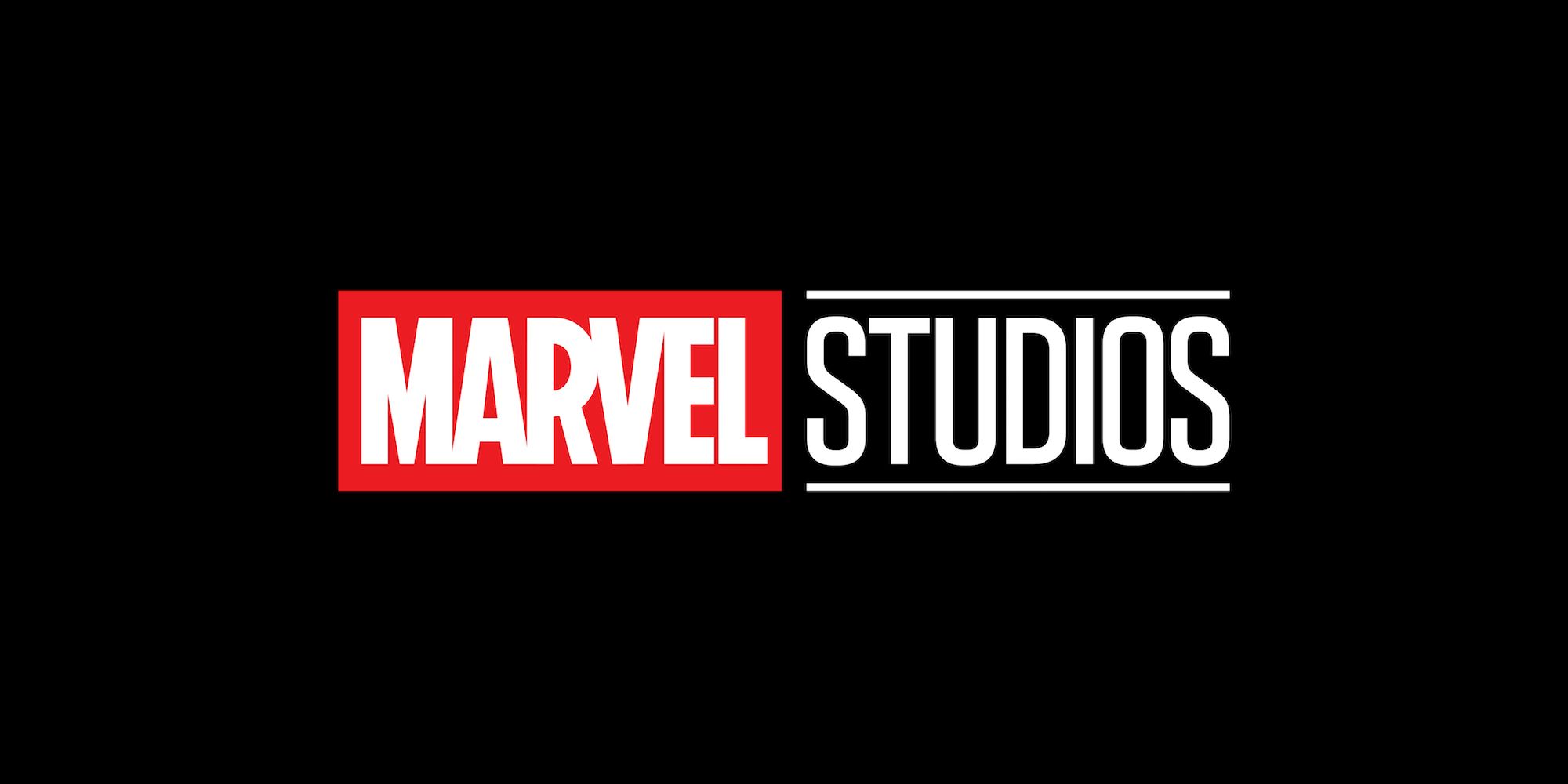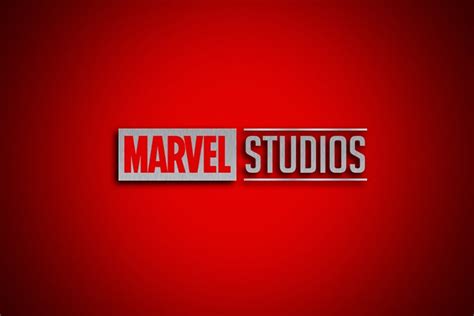
Marvel Studios Logo Font
Marvel Studios Logo Font - Click to find the best 77 free fonts in the marvel style. I'm looking for the typeface used for the studios section of marvel's film division. Dharma gothic is close, but the characters are a little too tall compared to their. I think it might be dharma gothic expanded, but. Every font is free to download! The studios one is actually kenyan coffee regular.